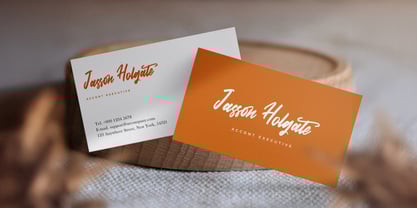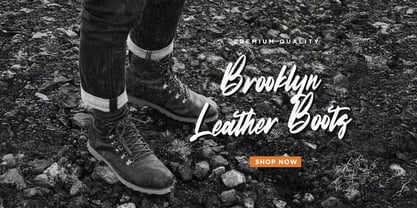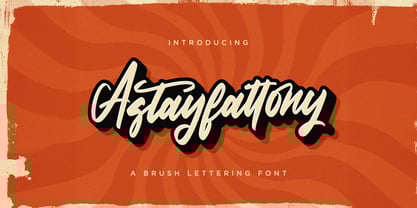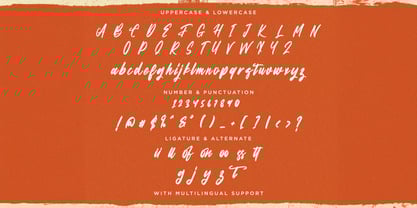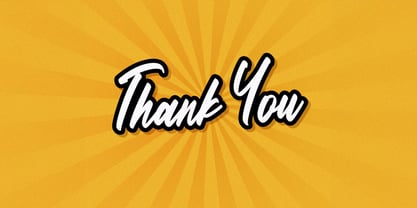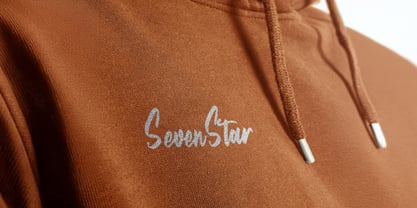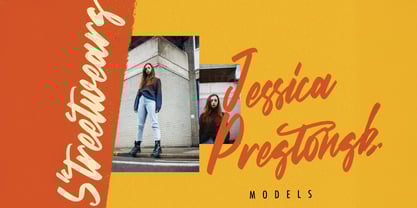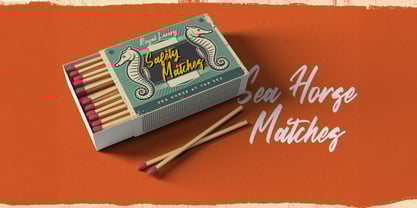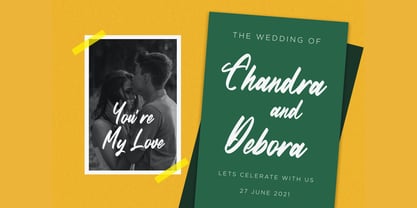
Astayfattony
The Astayfattony Font Family was designed by Virgiawan Listanto and published by Stringlabs Creative Studio. Astayfattony contains 1 styles. More about this family
Astayfattony is a modern handwritten font with a casual yet confident flow. Designed to look effortlessly stylish, this font blends smooth curves with a natural rhythm perfect for adding a personal, handwritten touch to your designs. Whether you’re creating logos, social posts, invitations, or product packaging, Astayfattony brings warmth, style, and character to every word.